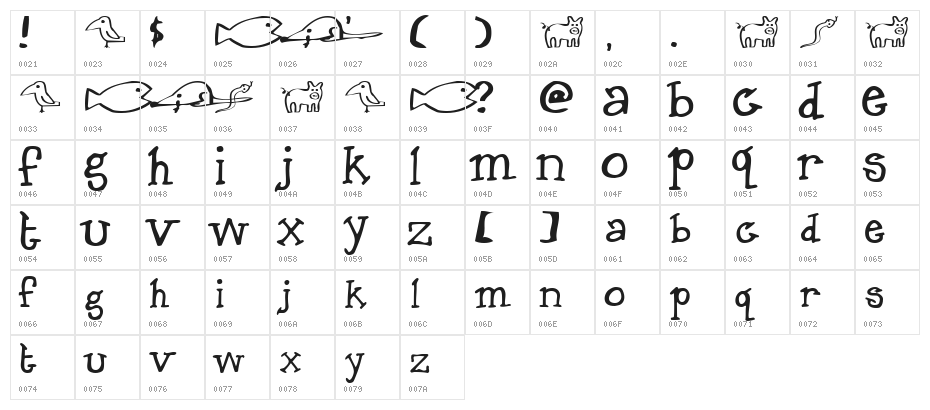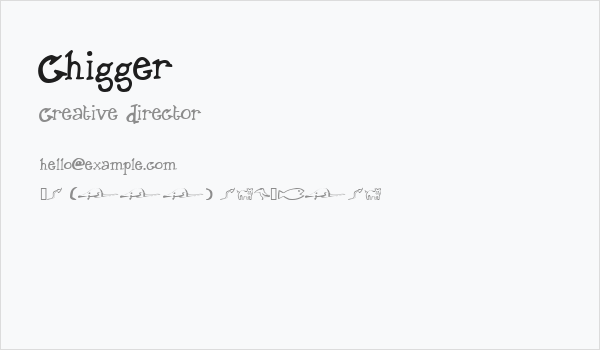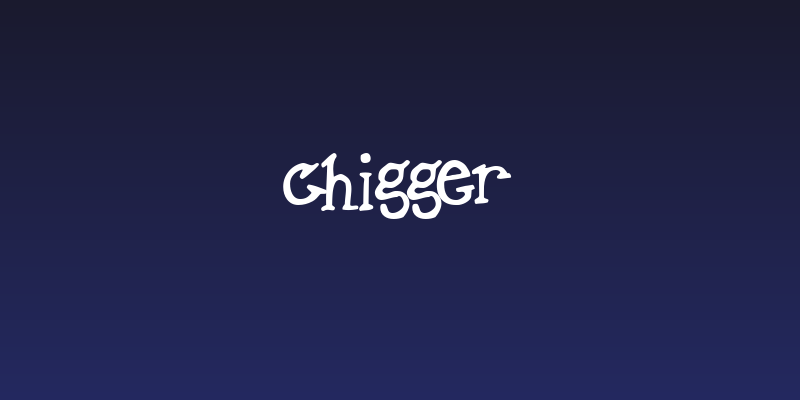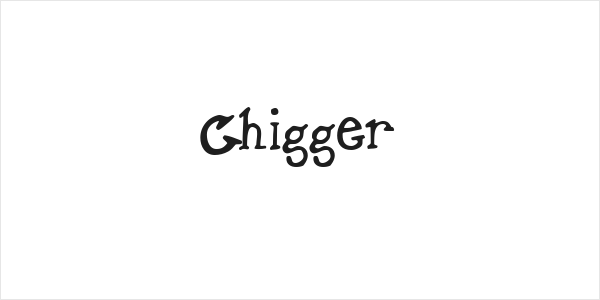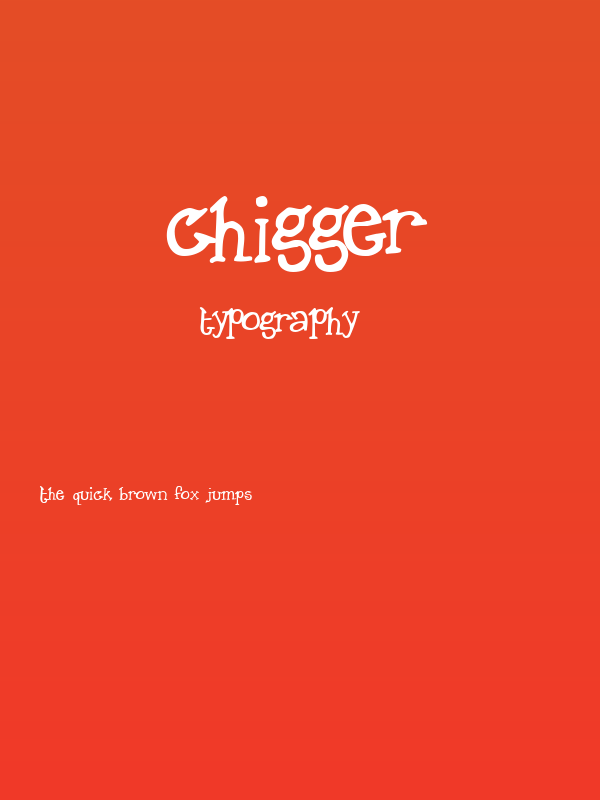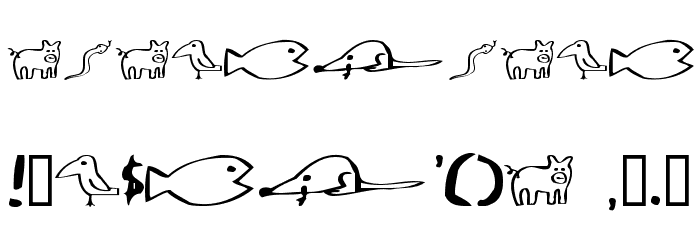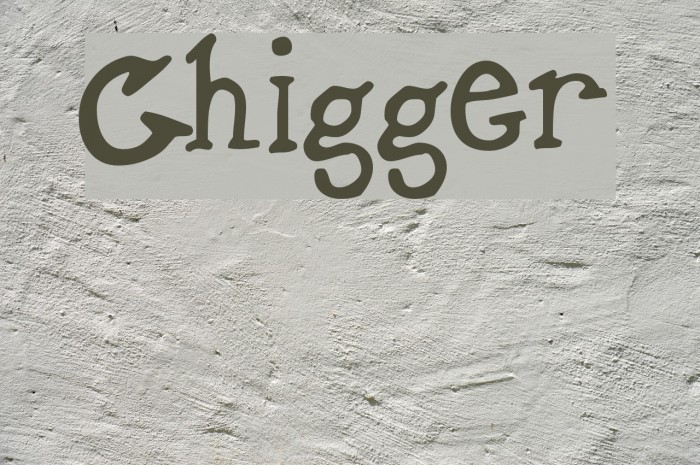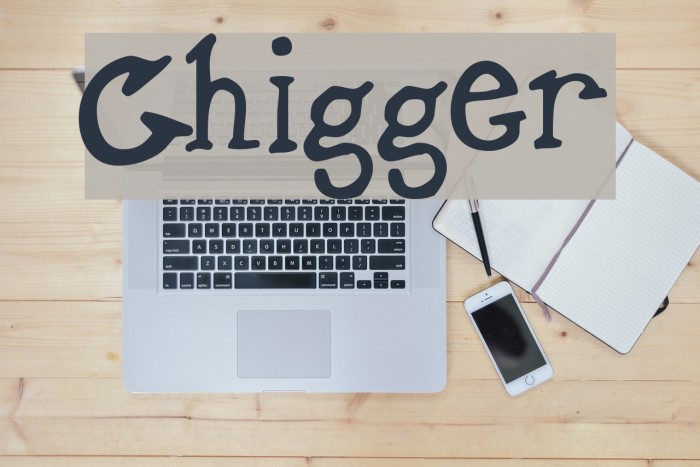
Chigger Font
Fonts by Matthew Austin Petty - www.disturbed.com
| Style général | Playful, Whimsical, Hand-drawn |
| Cas d'utilisation | Headlines, Logos, Creative projects |
| Projets proposés | Children's books, playful branding, creative invitations, greeting cards, and informal posters. |